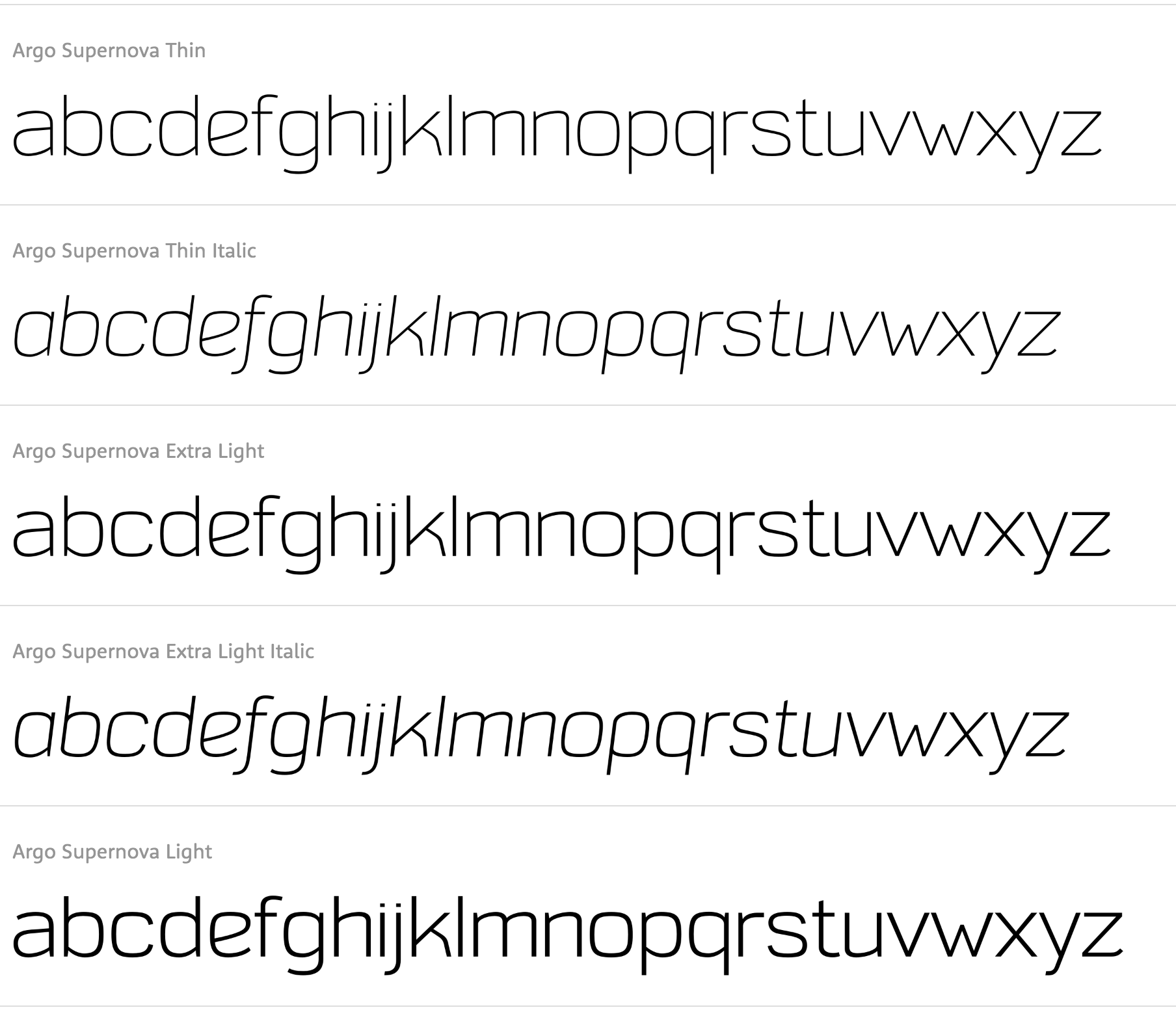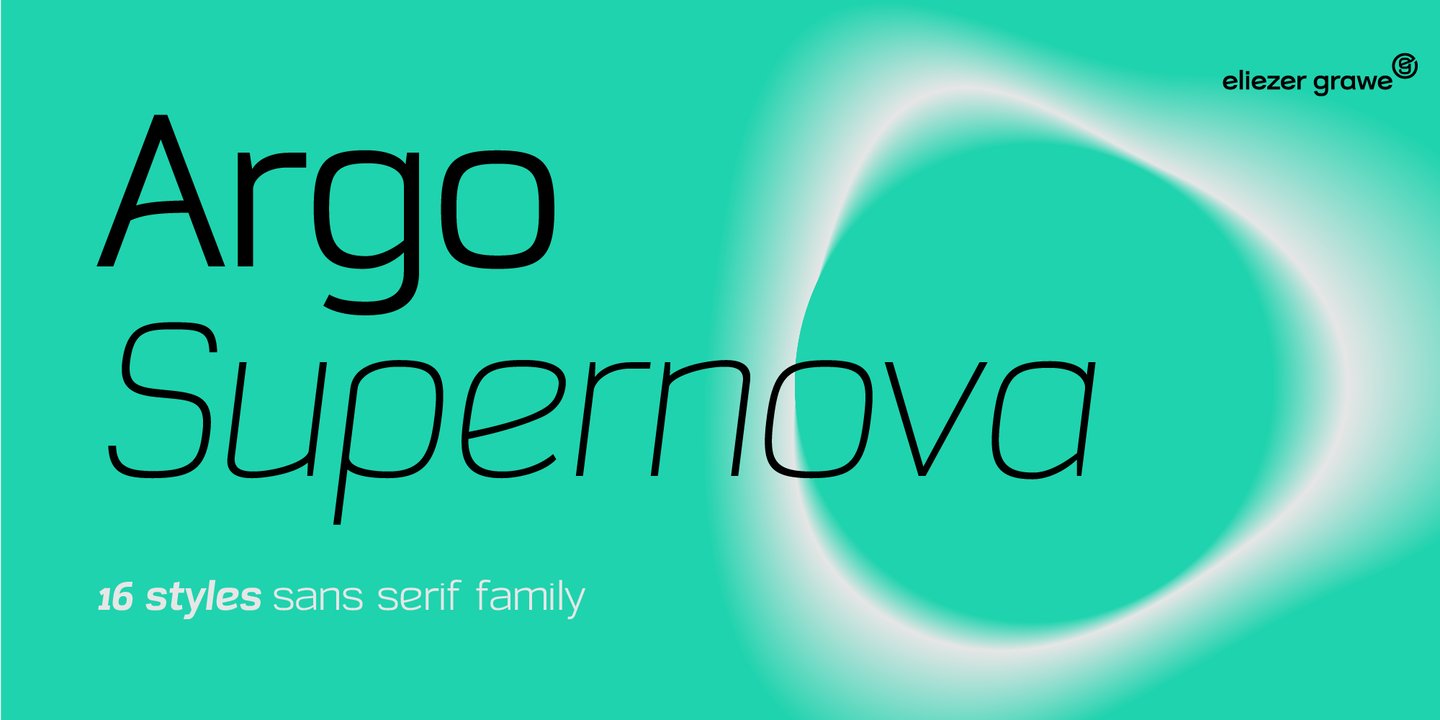
Argo Supernova Font Free Download . Free download argo nova for macos, windows, sketch, figma, photoshop and web site. Argo supernova is a sans serif font, with smooth yet memorable shapes. Argo nova font for the figma, web site and photoshop in all styles. Download free argo nova font for photoshop, macos, windows, in all weights (argo nova woff2, argo nova woff, argo nova ttf, argo. Inspired by science fiction titles, it is versatile. Delicate on the thinest weights, strong on the thickest ones, it is. Délicate dans les graisses les plus fines, forte. In all formats (argo nova woff2, argo nova woff, argo nova ttf, argo nova eot). The font is available in all formats (argo nova woff2, argo nova woff, argo nova ttf, argo nova eot) and applicable to the website, photoshop and any os.
Argo supernova is a sans serif font, with smooth yet memorable shapes. Delicate on the thinest weights, strong on the thickest ones, it is. Argo nova font for the figma, web site and photoshop in all styles. The font is available in all formats (argo nova woff2, argo nova woff, argo nova ttf, argo nova eot) and applicable to the website, photoshop and any os. Free download argo nova for macos, windows, sketch, figma, photoshop and web site. Délicate dans les graisses les plus fines, forte. Download free argo nova font for photoshop, macos, windows, in all weights (argo nova woff2, argo nova woff, argo nova ttf, argo. In all formats (argo nova woff2, argo nova woff, argo nova ttf, argo nova eot). Inspired by science fiction titles, it is versatile.
Argo Supernova Font Free Download Delicate on the thinest weights, strong on the thickest ones, it is. Free download argo nova for macos, windows, sketch, figma, photoshop and web site. Download free argo nova font for photoshop, macos, windows, in all weights (argo nova woff2, argo nova woff, argo nova ttf, argo. The font is available in all formats (argo nova woff2, argo nova woff, argo nova ttf, argo nova eot) and applicable to the website, photoshop and any os. Delicate on the thinest weights, strong on the thickest ones, it is. Argo supernova is a sans serif font, with smooth yet memorable shapes. Argo nova font for the figma, web site and photoshop in all styles. Délicate dans les graisses les plus fines, forte. In all formats (argo nova woff2, argo nova woff, argo nova ttf, argo nova eot). Inspired by science fiction titles, it is versatile.
Supernova Futuristic Display Font Fonts Creative Market Argo Supernova Font Free Download Argo supernova is a sans serif font, with smooth yet memorable shapes. Free download argo nova for macos, windows, sketch, figma, photoshop and web site. Délicate dans les graisses les plus fines, forte. Inspired by science fiction titles, it is versatile. Argo nova font for the figma, web site and photoshop in all styles. In all formats (argo nova woff2,. Argo Supernova Font Free Download.
Fonte Argo Supernova Eliezer Grawe Argo Supernova Font Free Download Delicate on the thinest weights, strong on the thickest ones, it is. Délicate dans les graisses les plus fines, forte. Download free argo nova font for photoshop, macos, windows, in all weights (argo nova woff2, argo nova woff, argo nova ttf, argo. Argo supernova is a sans serif font, with smooth yet memorable shapes. Argo nova font for the figma,. Argo Supernova Font Free Download.
Fonte Argo Supernova Eliezer Grawe Argo Supernova Font Free Download free argo nova font for photoshop, macos, windows, in all weights (argo nova woff2, argo nova woff, argo nova ttf, argo. Delicate on the thinest weights, strong on the thickest ones, it is. Free download argo nova for macos, windows, sketch, figma, photoshop and web site. Argo nova font for the figma, web site and photoshop in all styles.. Argo Supernova Font Free Download.
Supernova Font Download For Free, View Sample Text, Rating And More Argo Supernova Font Free Download Délicate dans les graisses les plus fines, forte. Free download argo nova for macos, windows, sketch, figma, photoshop and web site. Delicate on the thinest weights, strong on the thickest ones, it is. Inspired by science fiction titles, it is versatile. Download free argo nova font for photoshop, macos, windows, in all weights (argo nova woff2, argo nova woff, argo. Argo Supernova Font Free Download.
Supernova Font Font Canyon Argo Supernova Font Free Download Free download argo nova for macos, windows, sketch, figma, photoshop and web site. Argo supernova is a sans serif font, with smooth yet memorable shapes. The font is available in all formats (argo nova woff2, argo nova woff, argo nova ttf, argo nova eot) and applicable to the website, photoshop and any os. Delicate on the thinest weights, strong on. Argo Supernova Font Free Download.
Eliezer Grawe Argo Supernova Font Free Download free argo nova font for photoshop, macos, windows, in all weights (argo nova woff2, argo nova woff, argo nova ttf, argo. Argo supernova is a sans serif font, with smooth yet memorable shapes. Délicate dans les graisses les plus fines, forte. Inspired by science fiction titles, it is versatile. Argo nova font for the figma, web site and photoshop. Argo Supernova Font Free Download.